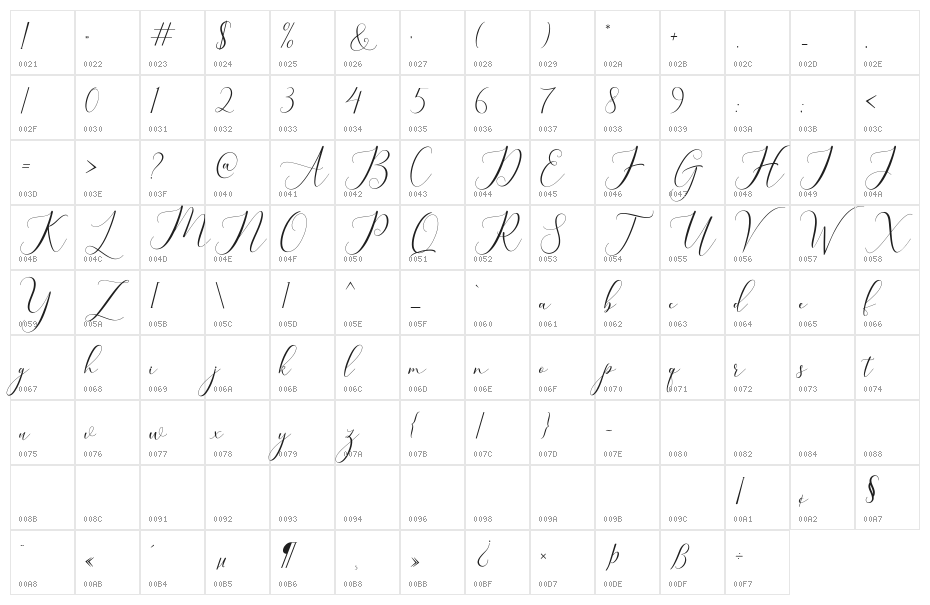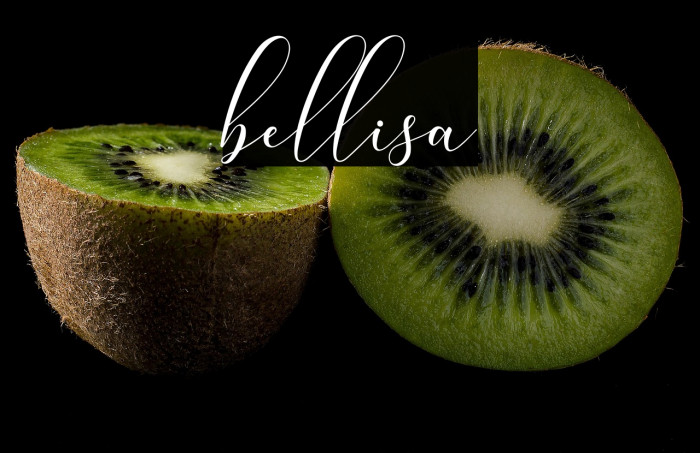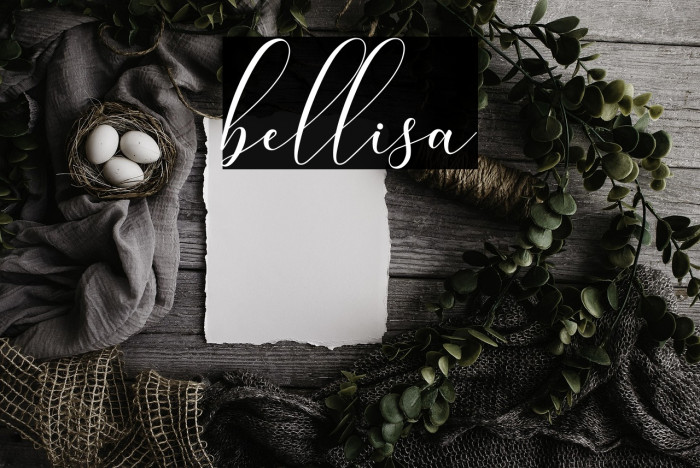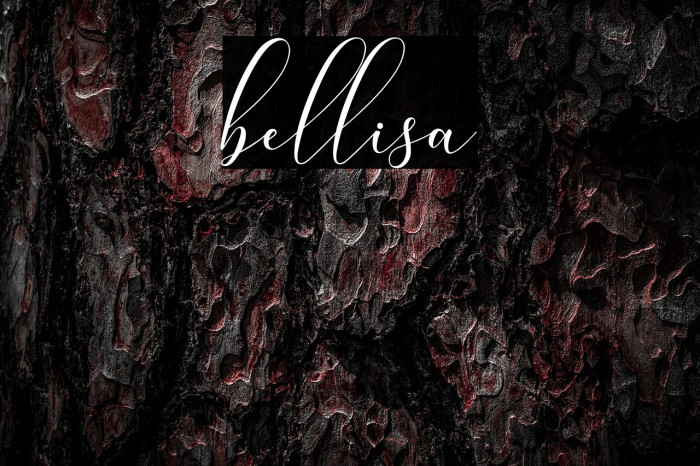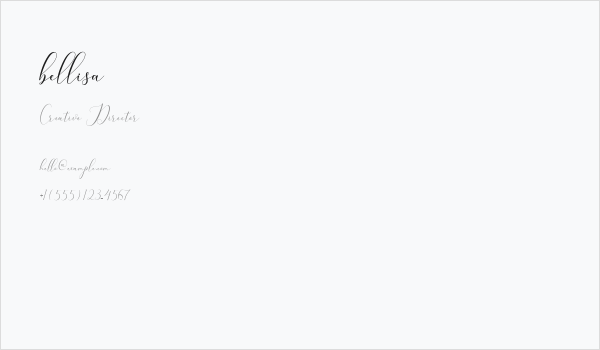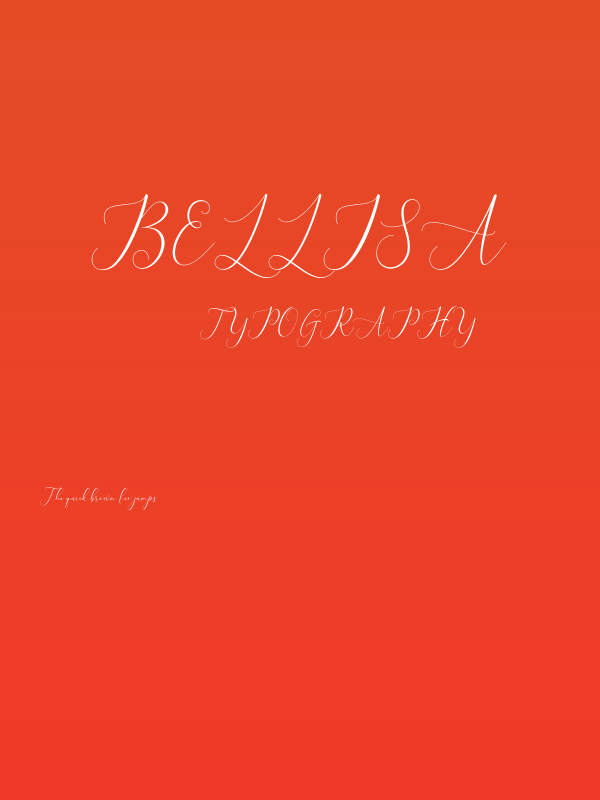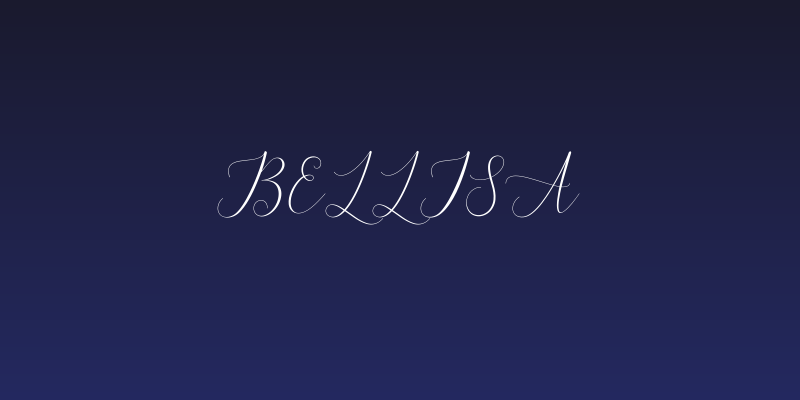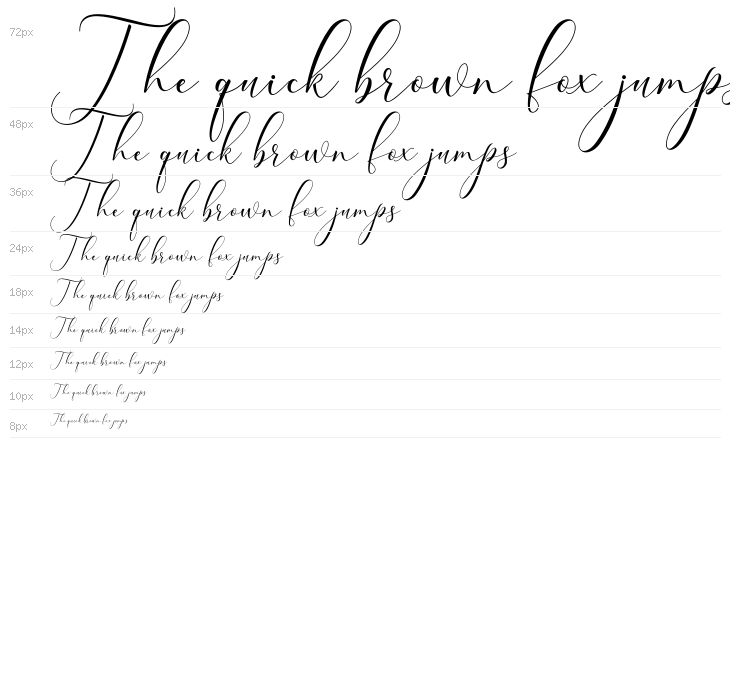
bellisa Font
bellisa Description
This elegant script font features a flowing, cursive style with delicate, sweeping lines and a graceful appearance. The uppercase letters are characterized by their tall, slender forms and gentle curves, while the lowercase letters maintain a consistent fluidity and charm. The numerals are stylishly crafted, complementing the overall aesthetic with their refined shapes. Special characters are thoughtfully designed to match the font's sophisticated look. This font exudes a sense of elegance and refinement, making it ideal for projects that require a touch of class and sophistication.
| Overall Style | Elegant, Sophisticated |
| Proposed Projects | Wedding invitations, luxury branding, elegant stationery, high-end product packaging. |